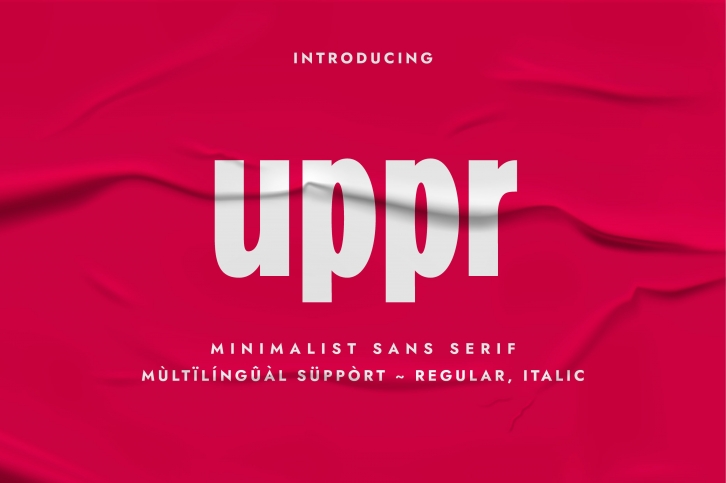
Uppr is a clean, modern, and condensed sans serif font perfect for titling and printing on large scales. Use it with confidence on any of your designs, and you will get some great results without doing much!